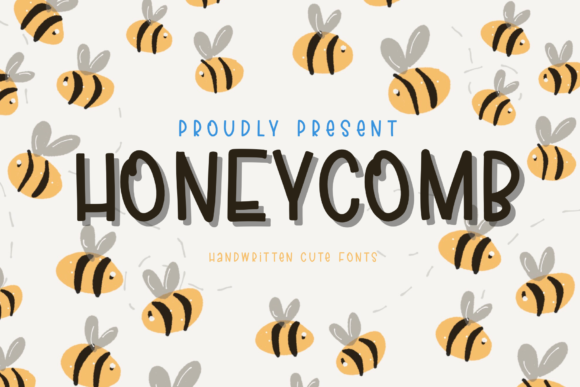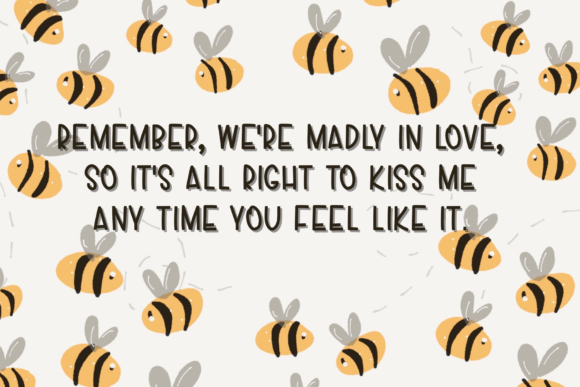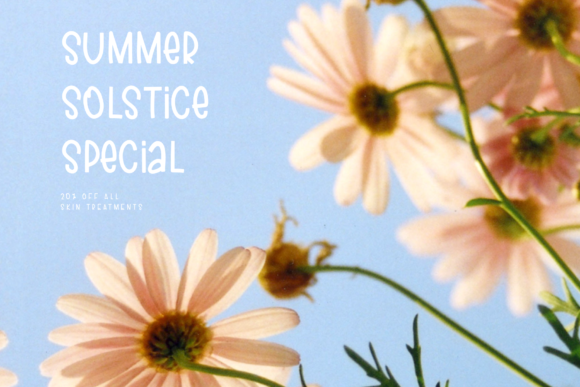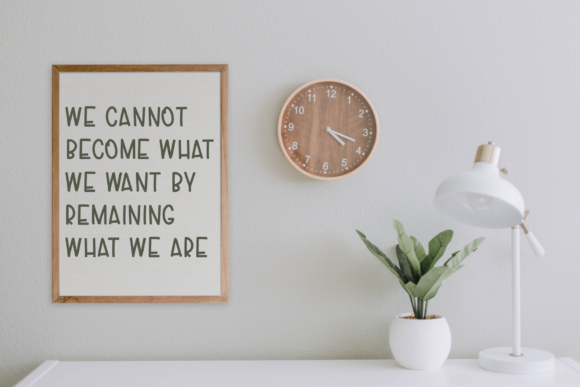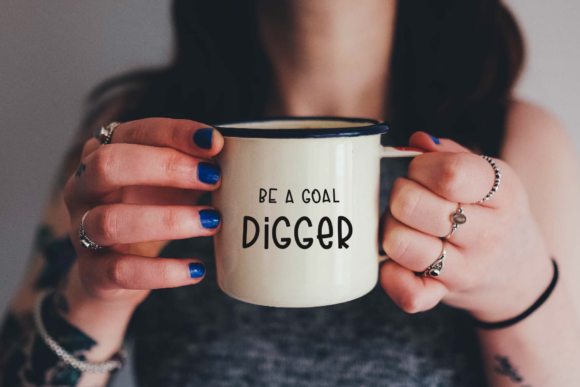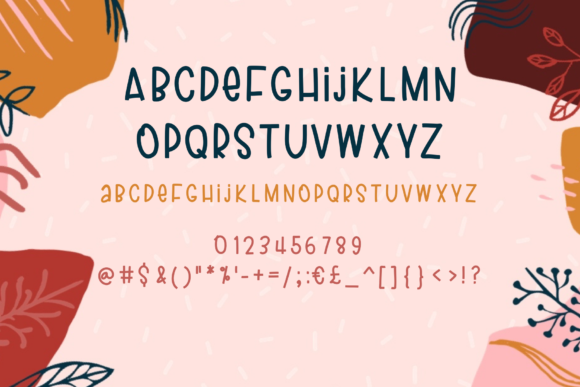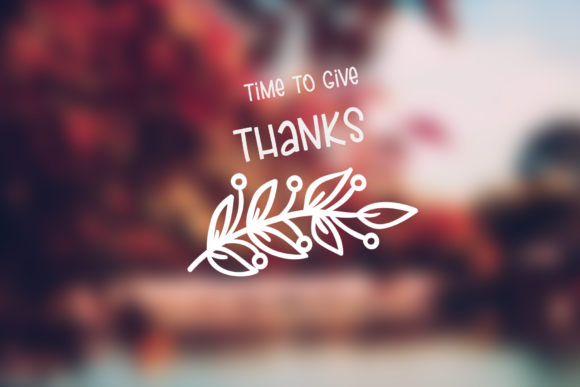
Honeycomb Font
About Honeycomb Font
Honeycomb results out of a stunning pairing of a brush pen and pencil that makes it look incredibly endearing and authentic. Use this gorgeous and unique handwritten font to bring any DIY project to life!